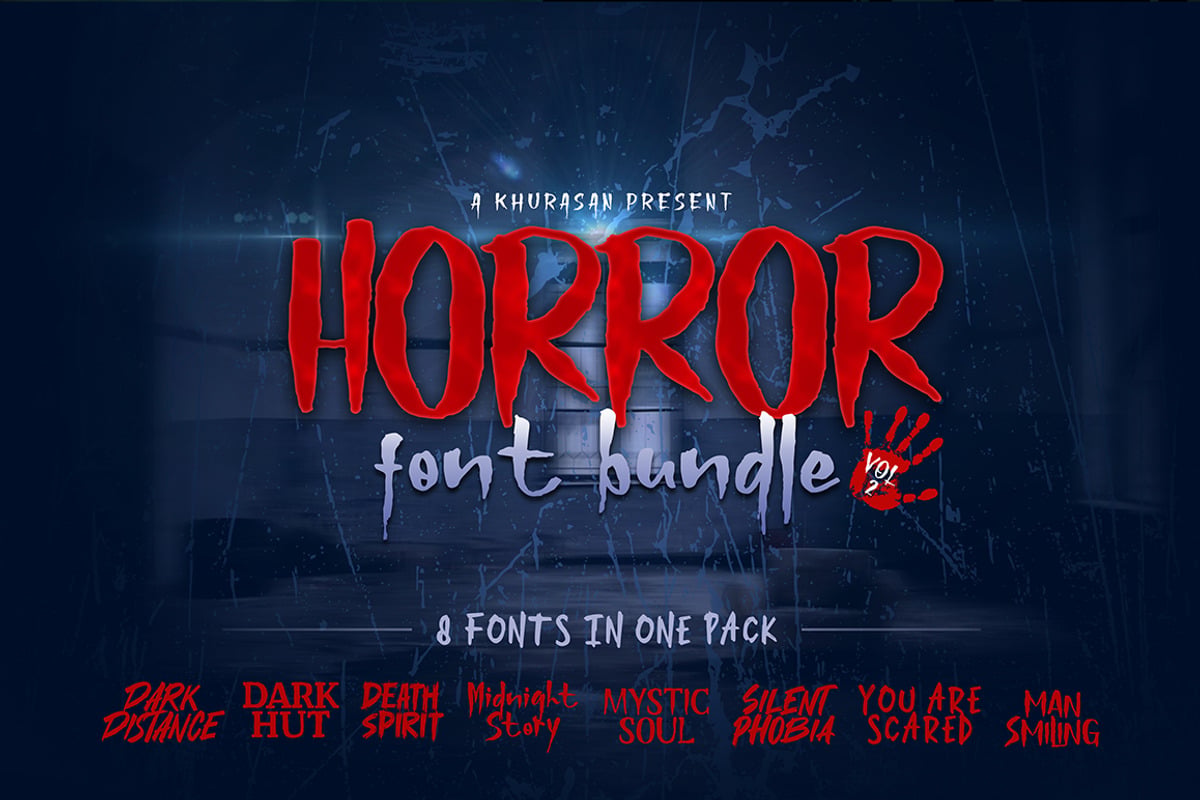
Horror Font Bundle V2
Eight spine-chilling horror fonts in one terrifying bundle – perfect for your darkest creative projects!
The Horror Font Bundle V2 delivers a curated collection of premium horror-themed typefaces designed to send shivers down your spine. Each font features unique stylistic variations that capture the essence of fear, darkness, and gothic atmosphere.
This comprehensive bundle is ideal for creating impactful horror projects including movie posters, book cover lettering, music album artwork, brand logos, and countless other spine-tingling designs.
Font Collection Includes:
- Dark Distance
- Dark Hut
- Death Spirit
- Man Smiling
- Midnight Stories
- Mystic Soul
- Silent Phobia
- You Are Scared